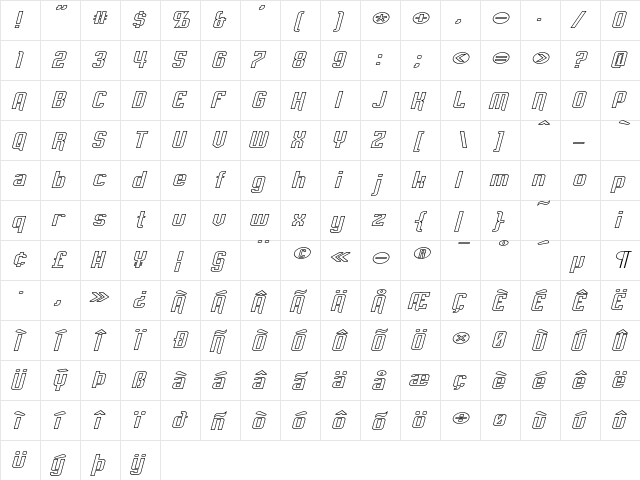
Empanada Expanded Outline Italic
| Foundry | Neale Davidson |
| Designer | Neale Davidson |
Design Context for Empanada Expanded Outline Typeface
Empanada Expanded Outline is built around its visual character rather than neutral utility — its distinctive forms are designed to make an impression at display sizes. Its italic angle brings a sense of urgency and motion to the letterforms.
Font Pairing: Pair with a clean neutral sans-serif for body copy to let Empanada Expanded Outline's character lead without overwhelming the composition.
Pro Tip: Use Empanada Expanded Outline exclusively at display sizes — it was designed to be seen, not read at length. Let a neutral companion handle body copy.